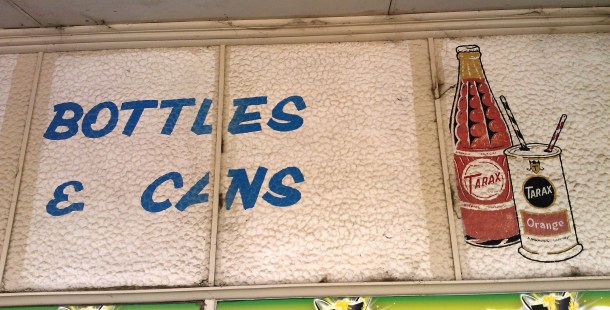
Tarax Posted on October 2, 2012 by Matt 1 Comment Reynard St, Coburg. Another piece of awesomeness from Reyanrd St. There’s one panel of the glass that has been replaced, so it’s no quite a complete piece, but it’s great to see that it’s survived so well. Dat old-style can. Share this:TwitterFacebookLike this:Like Loading... Related